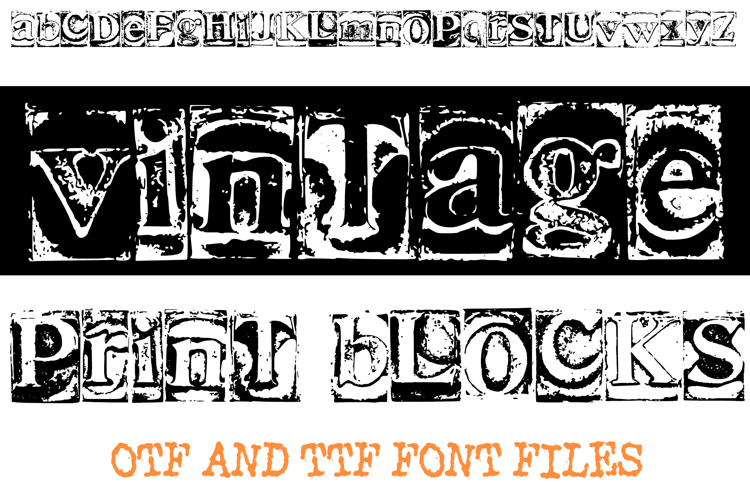
Step back in time and infuse your designs with the rich, tactile charm of yesteryear with Vintage Print Blocks Font! This unique typeface captures the raw, imperfect beauty of antique letterpress printing, where each character carries the authentic texture and distressed character of aged wooden blocks.
Every letter in Vintage Print Blocks Font is meticulously designed to showcase subtle ink bleed, rough edges, and charming imperfections, creating a genuinely rustic and handcrafted feel. It's more than just a font; it's a piece of history, perfect for projects demanding a touch of heritage, authenticity, and old-world appeal.
Ideal for vintage-inspired branding, rustic wedding invitations, craft fair signage, artisanal product packaging, retro posters, and evocative book covers. This font brings a warm, nostalgic essence to any design, making your text feel genuinely printed rather than digitally rendered.
If you're looking to create designs that feel rich in history, truly handcrafted, and uniquely charming, Vintage Print Blocks Font is your essential tool. Let your creativity be pressed into timeless beauty!